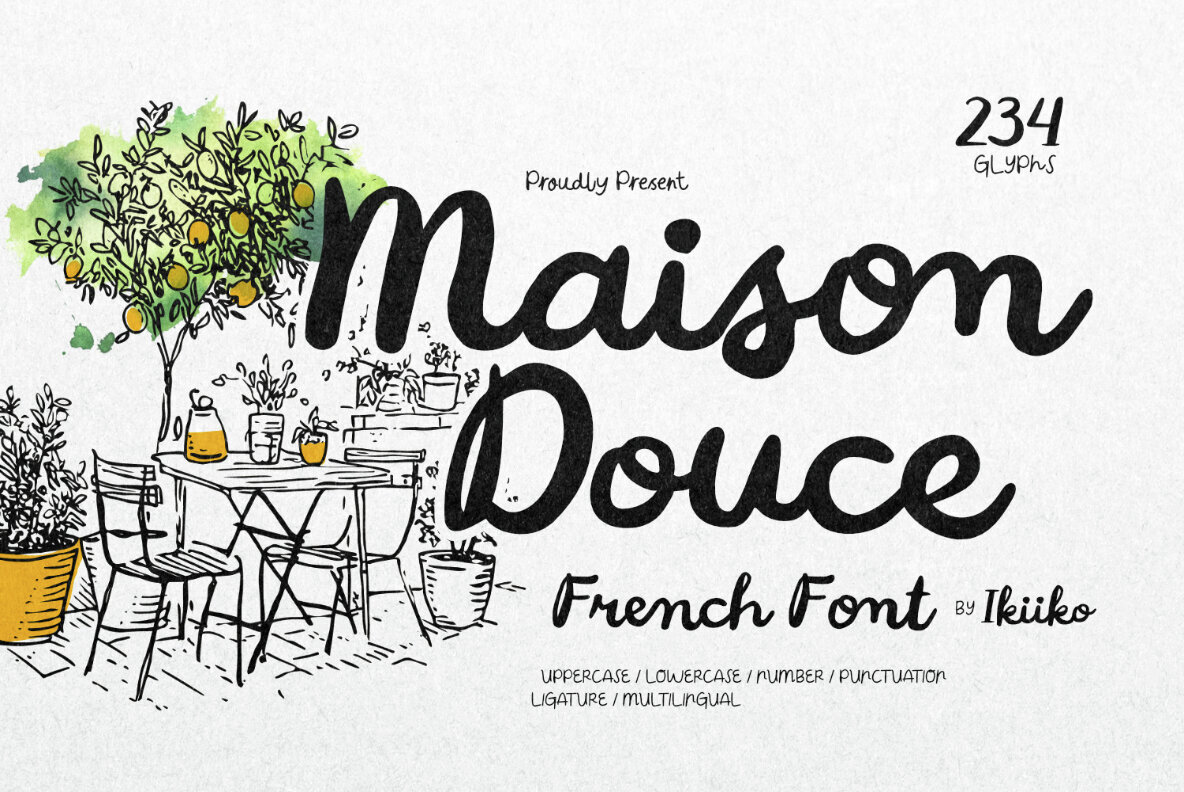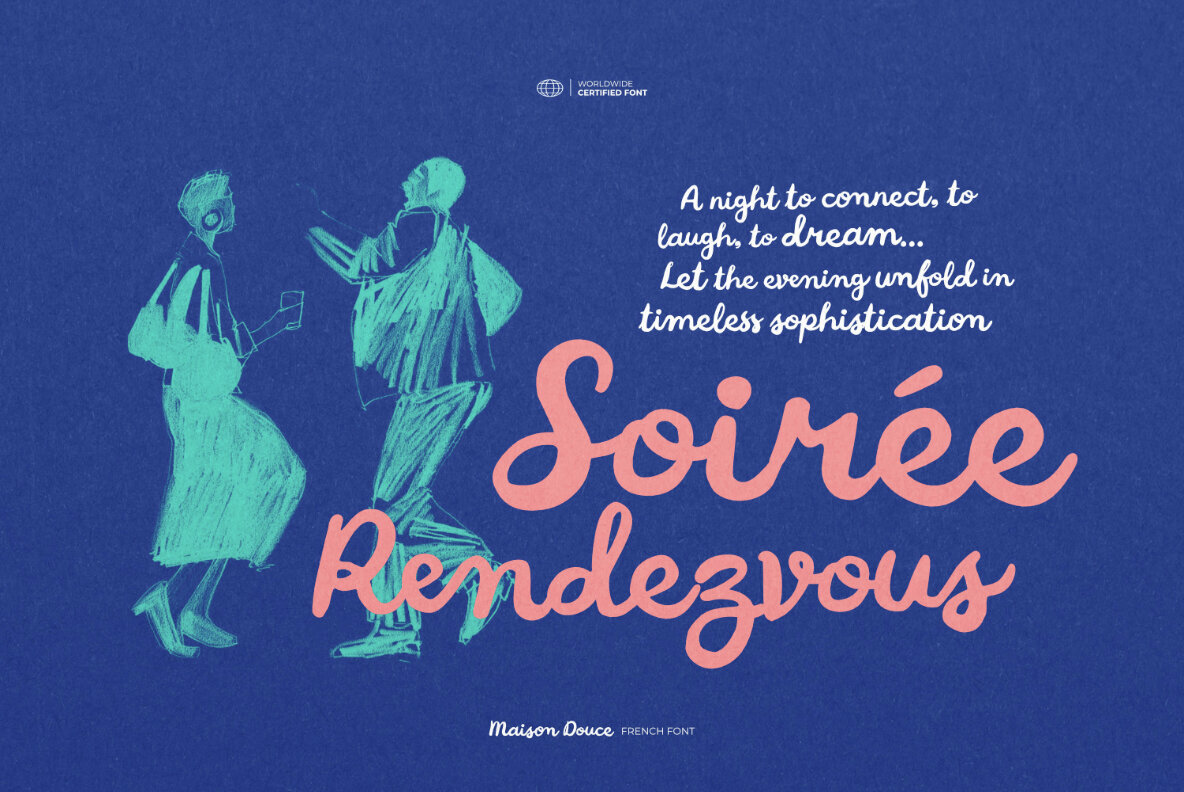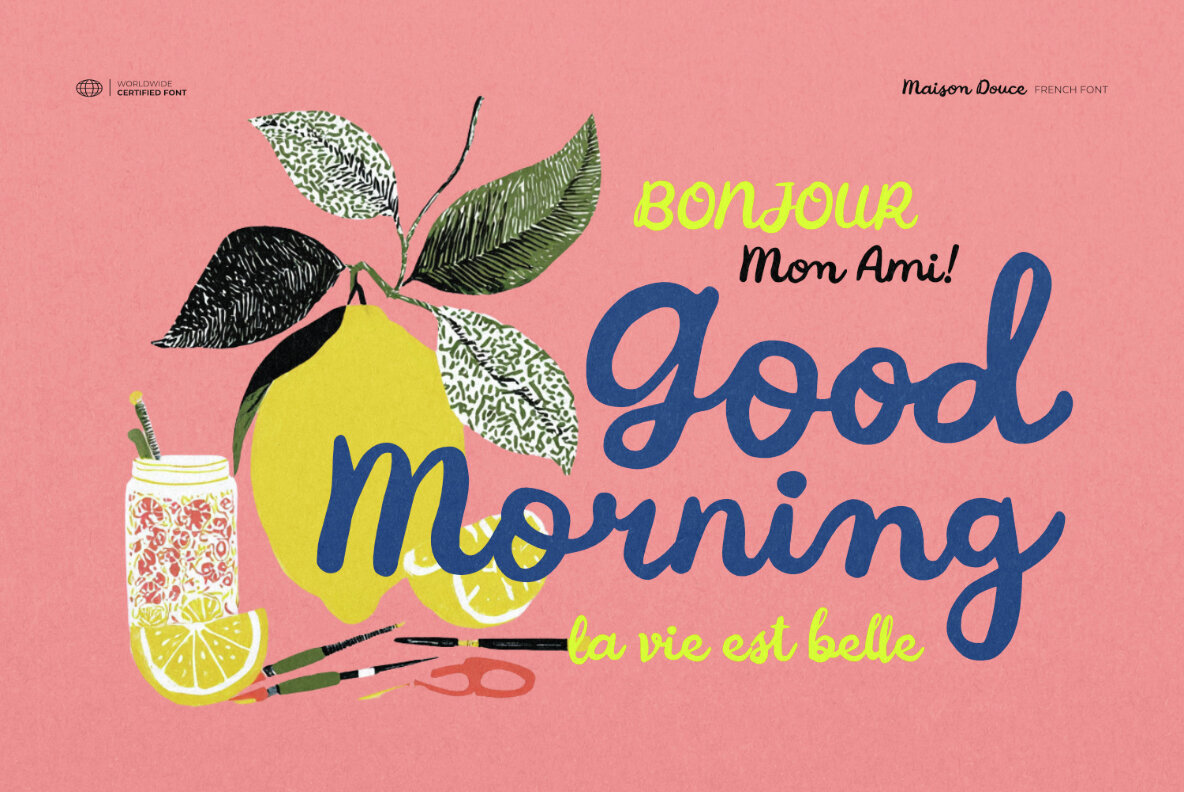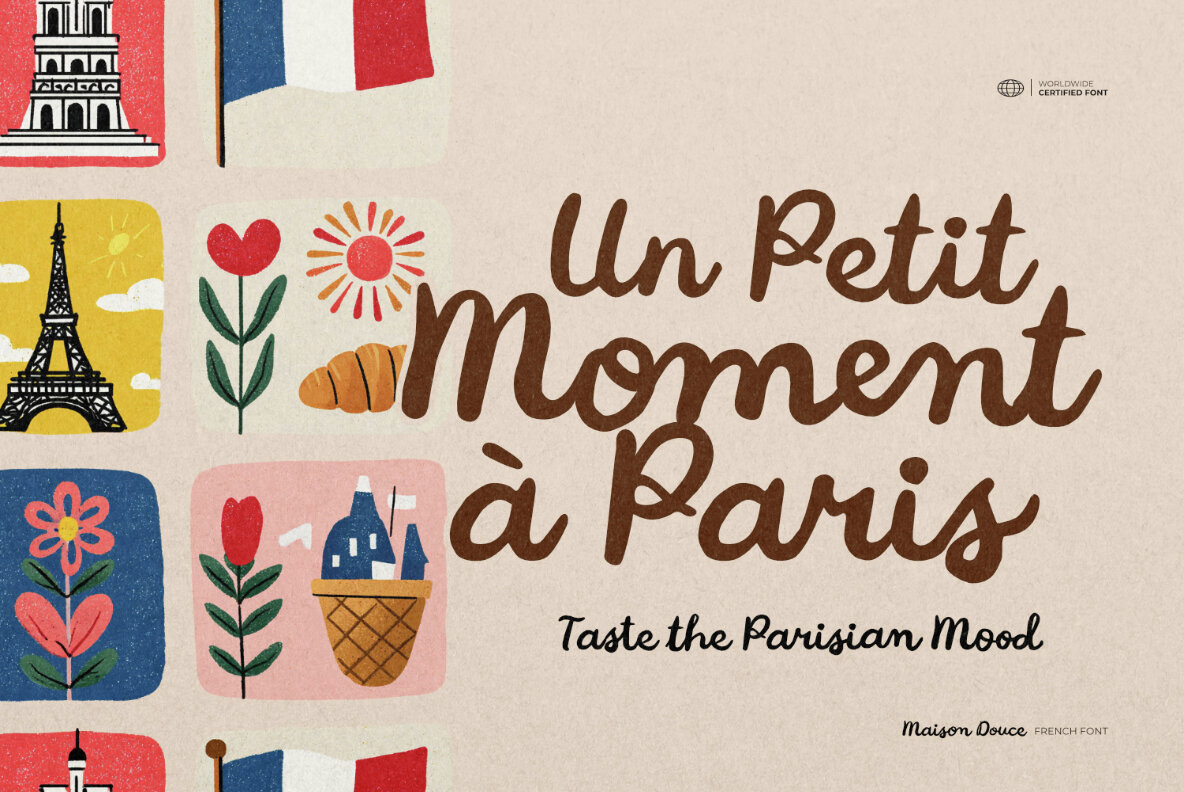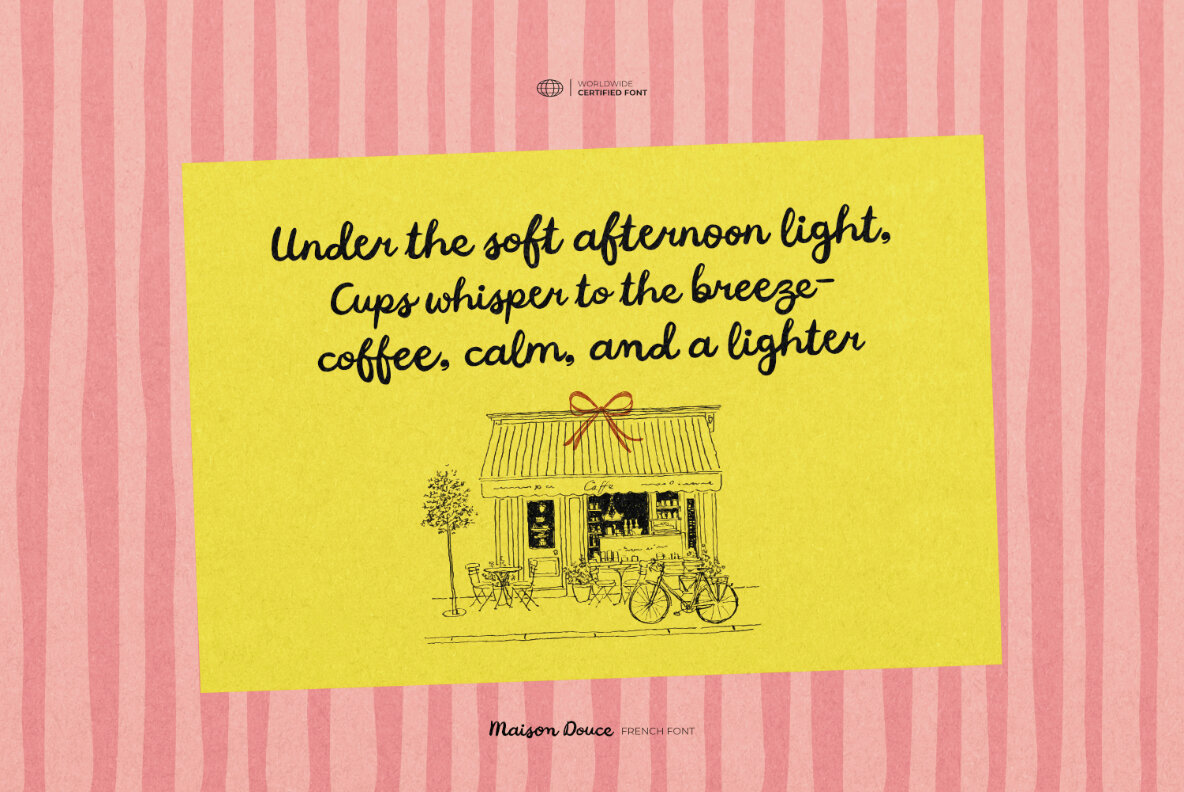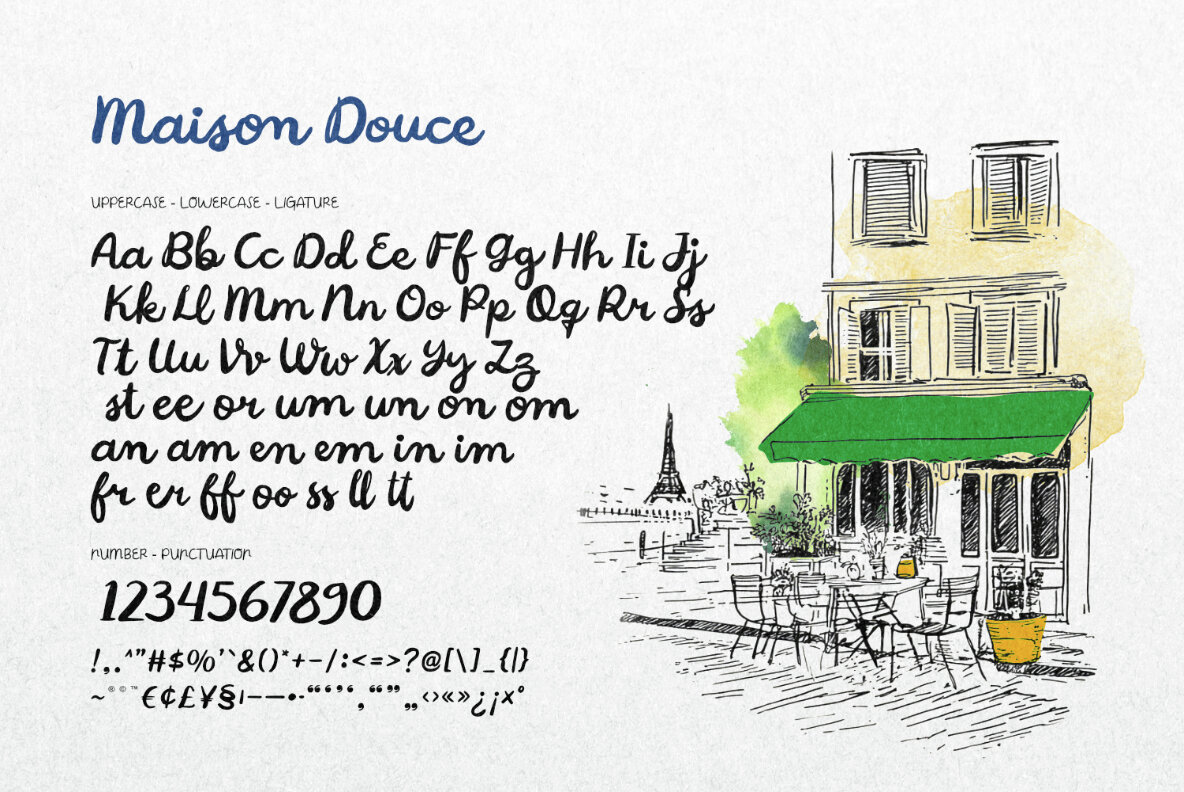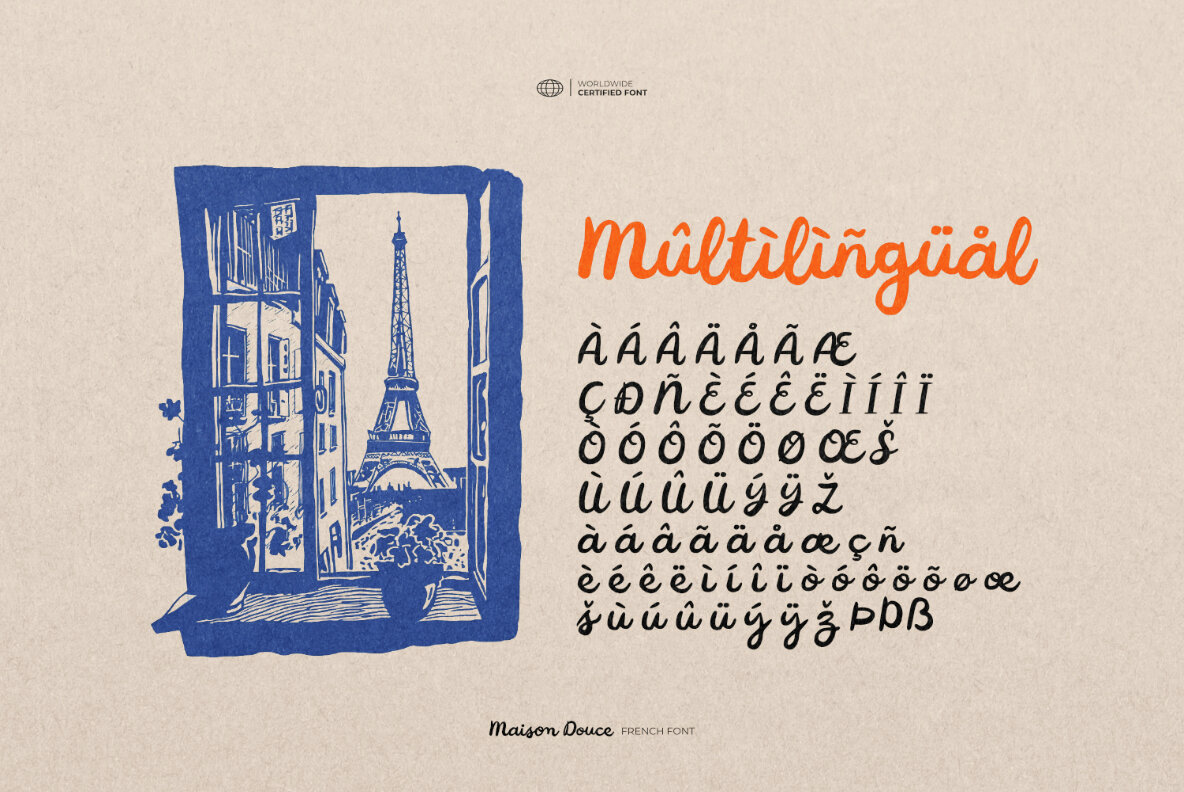
Maison Douce Font
Maison Douce
Maison Douce channels the ambiance of Parisian boulevards and the inviting spirit of French cafés. This handwriting font blends the energy of modern painting with the warmth of traditional art, capturing the personal character of ink on paper. Its handcrafted strokes weave a sense of nostalgia with contemporary sophistication, making it a nuanced choice for any creative project seeking Paris-inspired design. The details in Maison Douce echo the subtle imperfections of handwritten notes—bold, fluid lines paired with gentle curves evoke an effortless charm. Ideal for branding, packaging, and editorial design, the font adapts equally well to posters, social campaigns, and invitations. Its versatile letterforms ensure a harmonious fit within diverse visual aesthetics.Maison Douce: Expressive French Handwriting Font